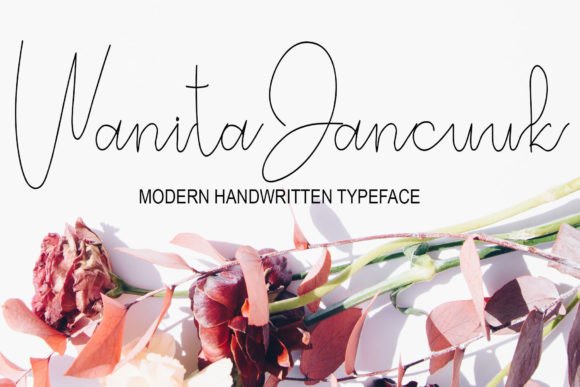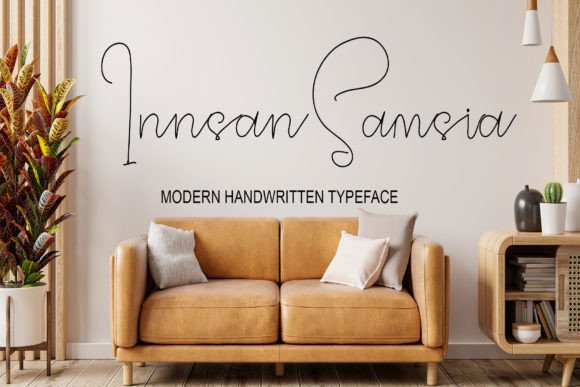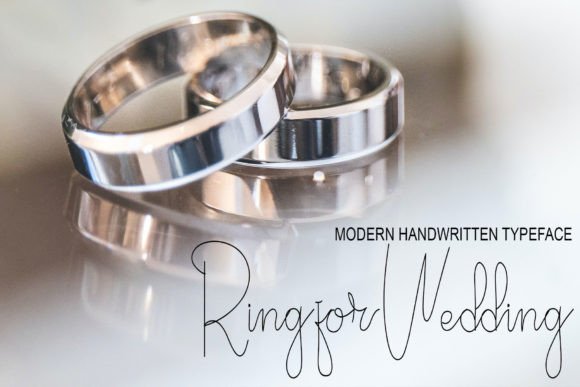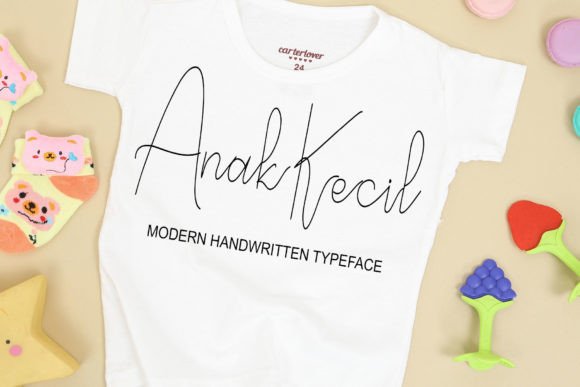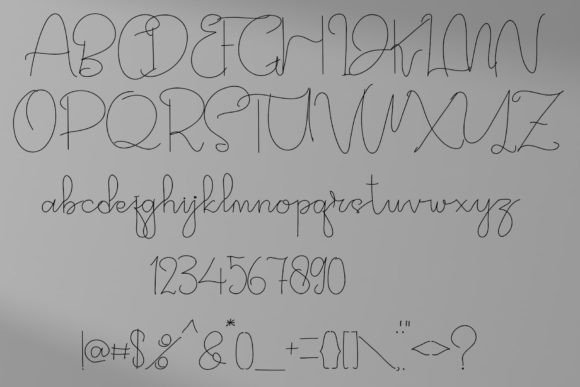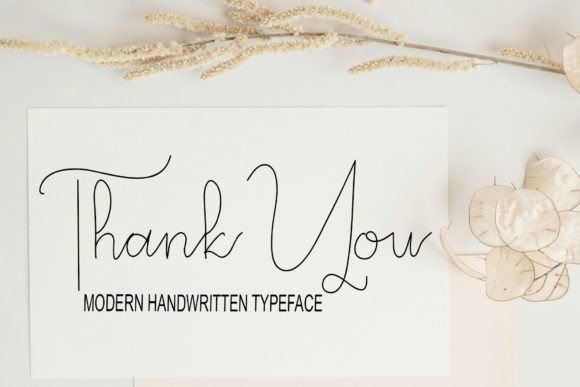
Wanita Jancuuk Font
The Wanita Jancuuk Font Download is a simple handwritten script created with the natural flow of hand-drawing on a tablet. With a casual yet stylish appeal, this typeface adapts beautifully to a variety of design needs. Its straightforward structure makes it versatile, while its cool handwritten rhythm ensures your projects always look unique and modern.
A Simple Handwritten Script with Style
Wanita Jancuuk blends minimalism with handwritten charm. Unlike overly decorative fonts, this Wanita Jancuuk script font emphasizes simplicity and clarity while still looking stylish. As a result, it works well for projects that require a clean, professional, yet creative touch.
Perfect for Invitations and Wedding Designs
Elegant handwritten fonts always shine in event stationery. The Wanita Jancuuk Font is excellent for wedding invitations, thank you notes, and personal cards. Moreover, its graceful strokes give your event designs a modern, heartfelt look.
Branding and Business Cards with Wanita Jancuuk Font
Typography has the power to define first impressions. The Wanita Jancuuk handwritten font is perfect for professional business cards, product branding, and advertising campaigns. In addition, it provides a polished yet casual look that resonates with both corporate and creative audiences.
Posters, Ads, and Creative Displays
The Wanita Jancuuk Font Download is also highly effective in advertisements, posters, and display projects. Whether for product ads, social campaigns, or promotional banners, it ensures your message is communicated with clarity and style.
Digital Design and Websites
In digital spaces, fonts need to be clear yet attractive. The Wanita Jancuuk typeface integrates seamlessly into websites, blogs, and social media graphics. Its handwritten style adds a personal and creative dimension to digital content.
Why Designers Choose Wanita Jancuuk Typeface
Designers appreciate fonts that provide versatility without losing charm. Many handwritten scripts can feel too complex, but the Wanita Jancuuk handwritten script stays simple, clean, and professional while still adding style. This balance makes it a dependable choice for both hobbyists and professionals.
Add Stylish Simplicity to Your Projects Today